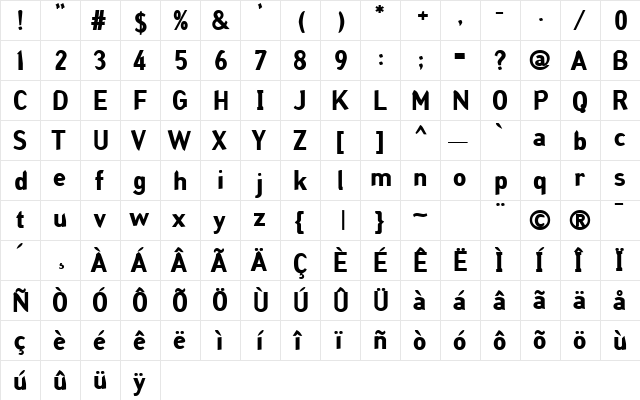
Grinder Bold
Design Context for Grinder Typeface
Grinder offers clean, dependable letterforms without strong stylistic allegiance, making it a practical choice for designers who need flexibility. Its bold stroke weight gives it real presence on the page.